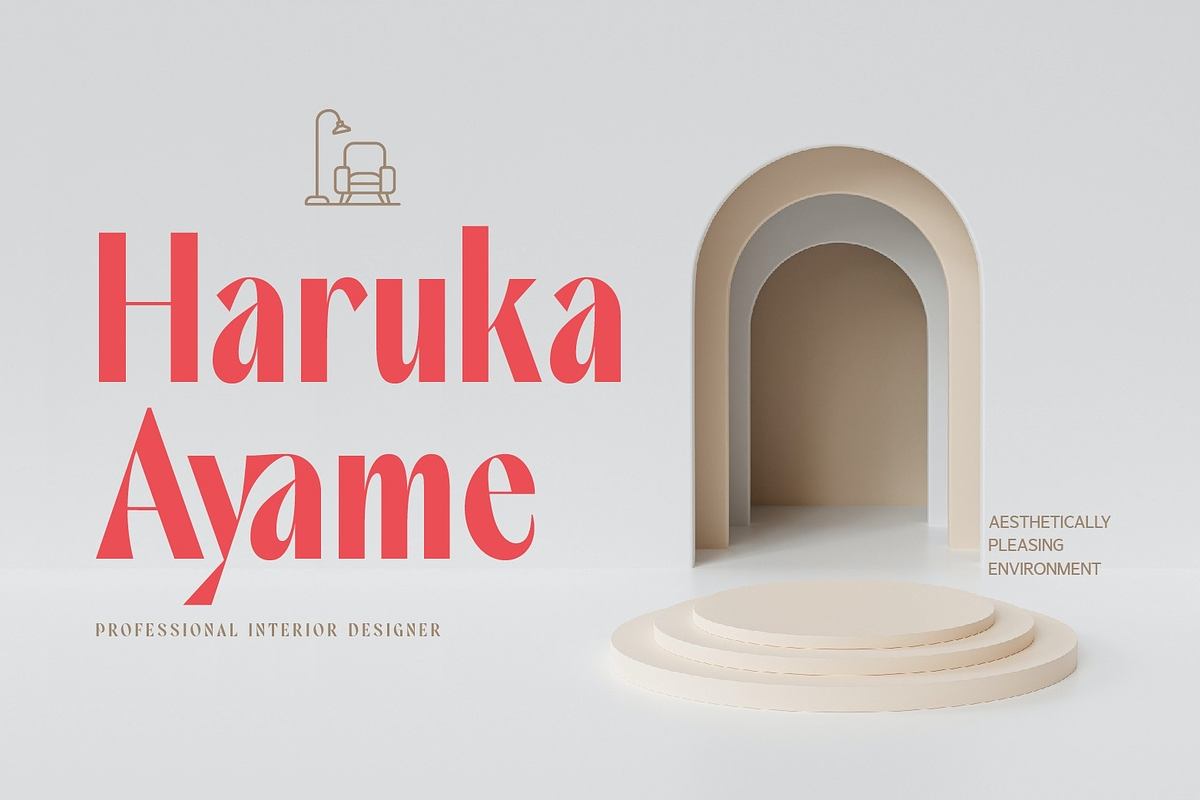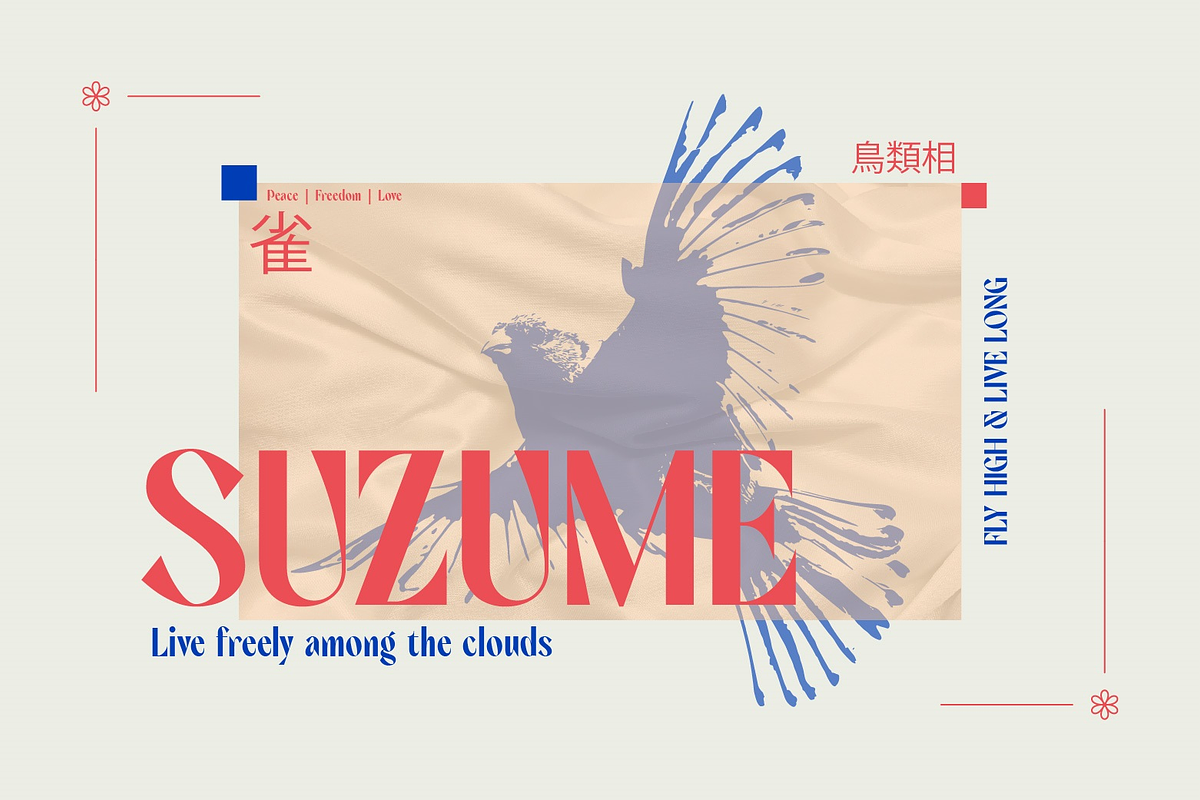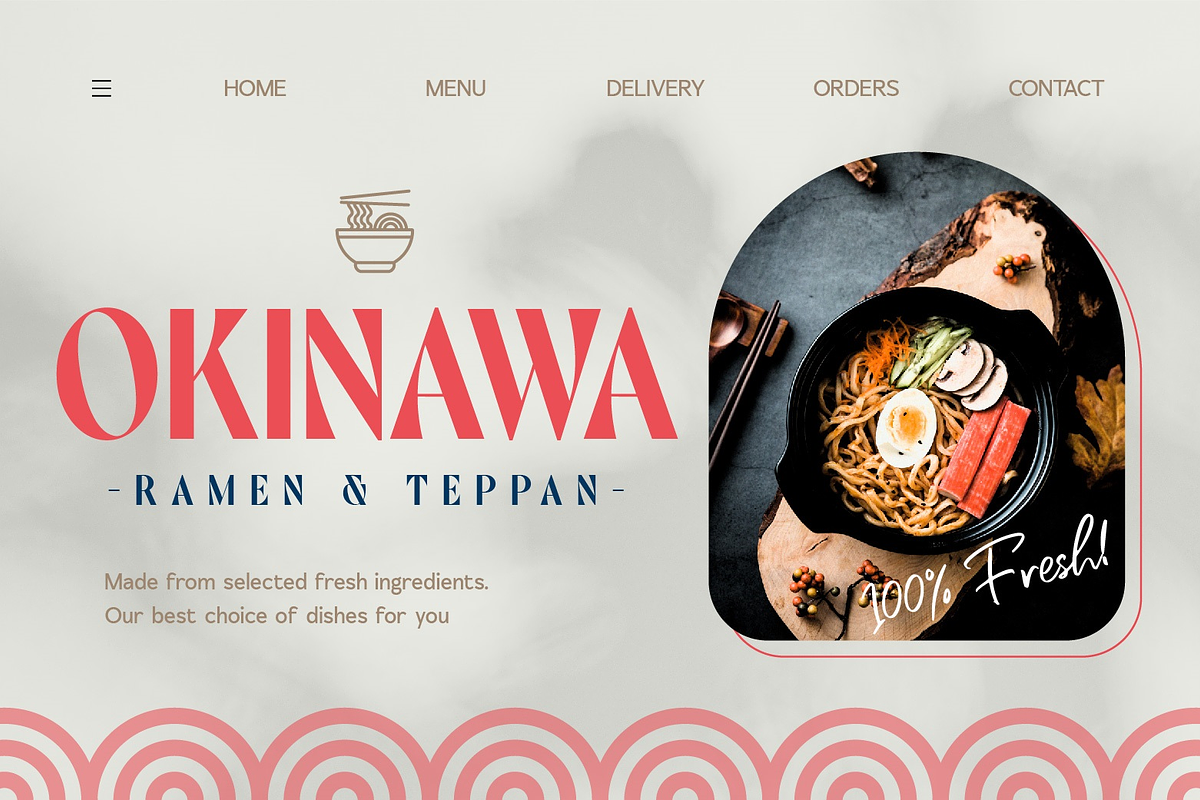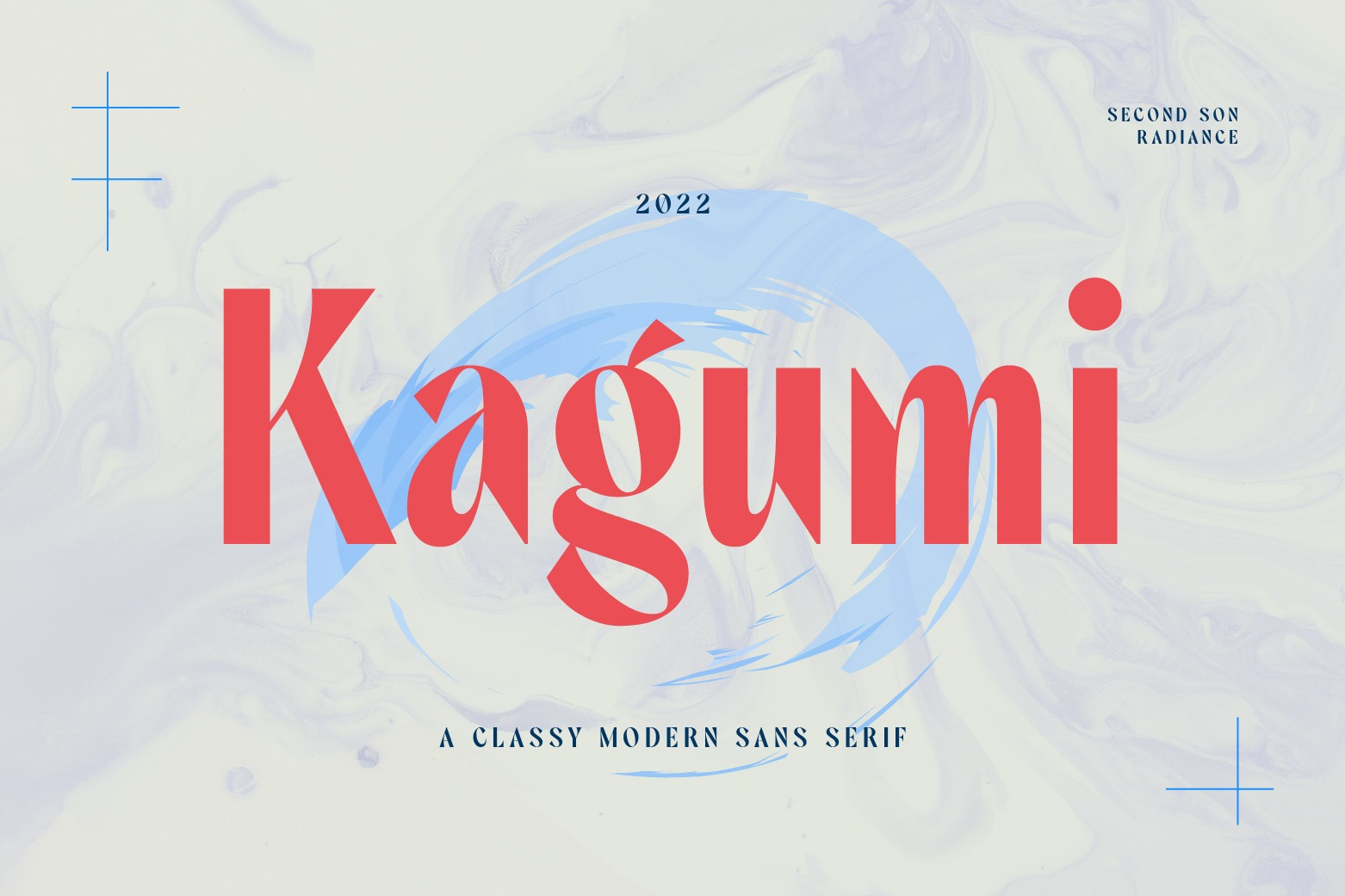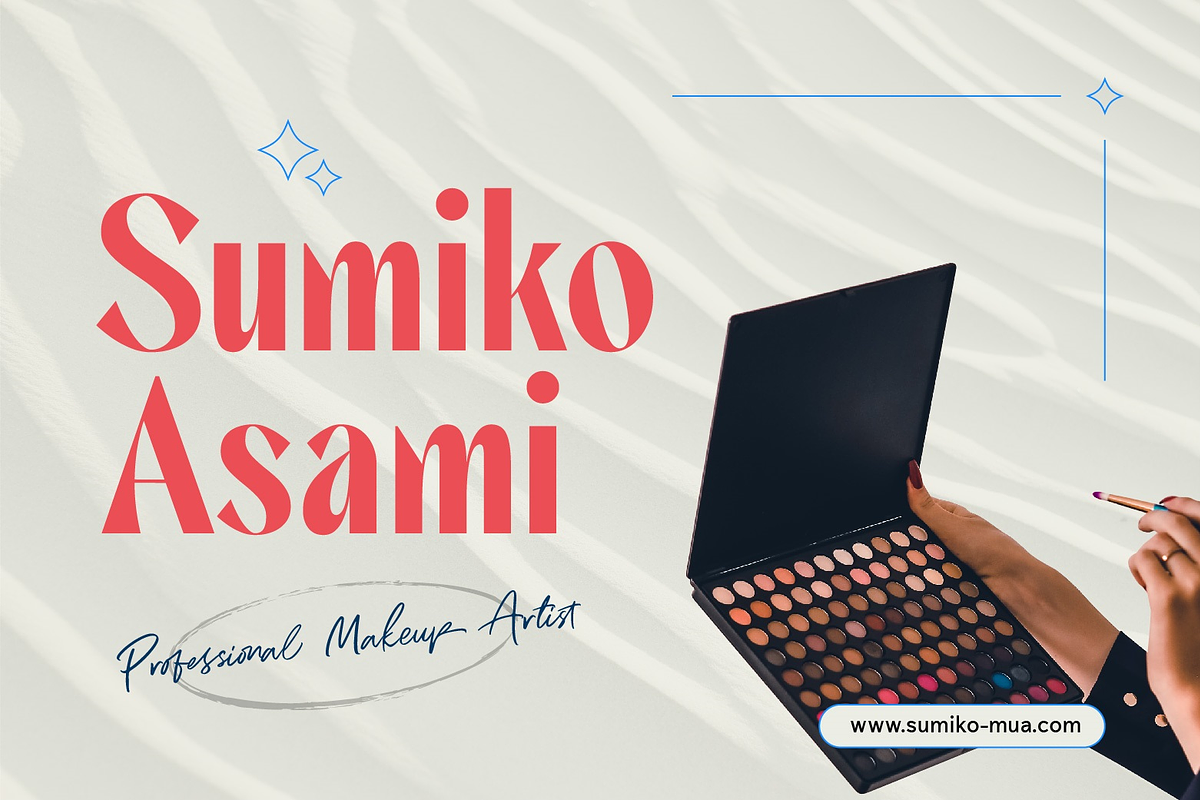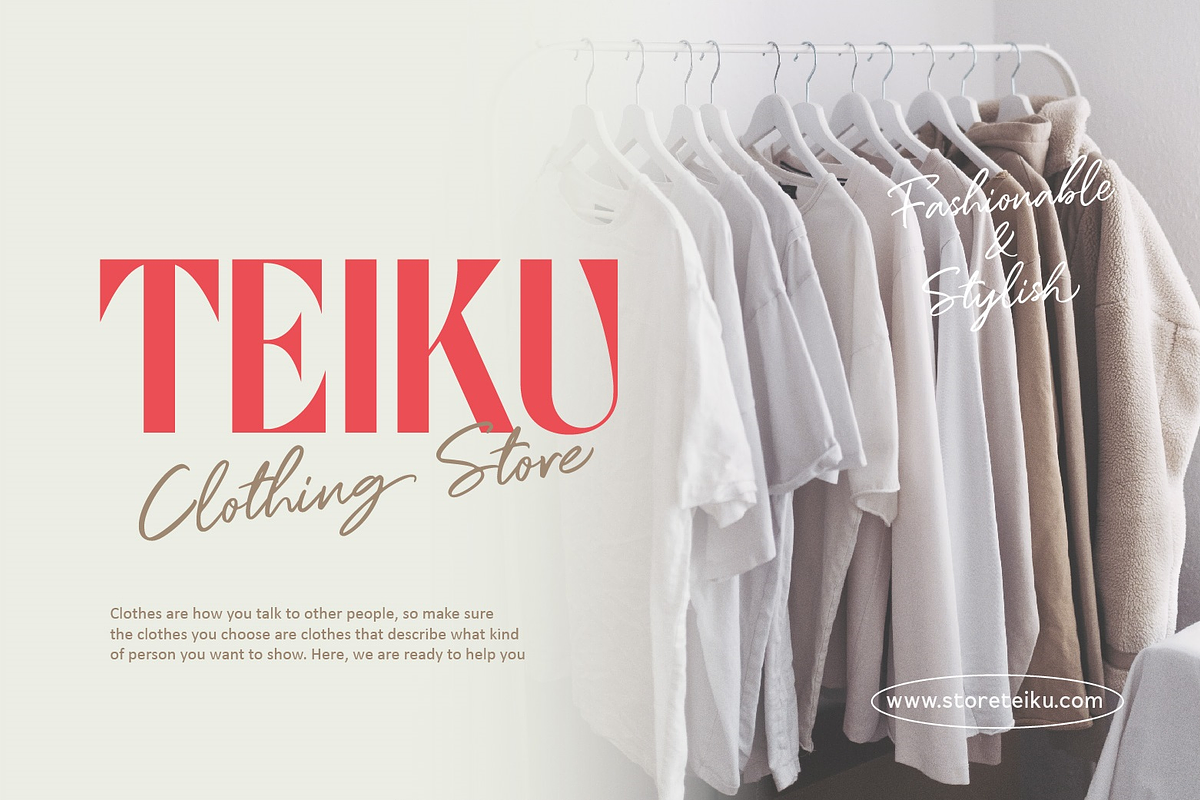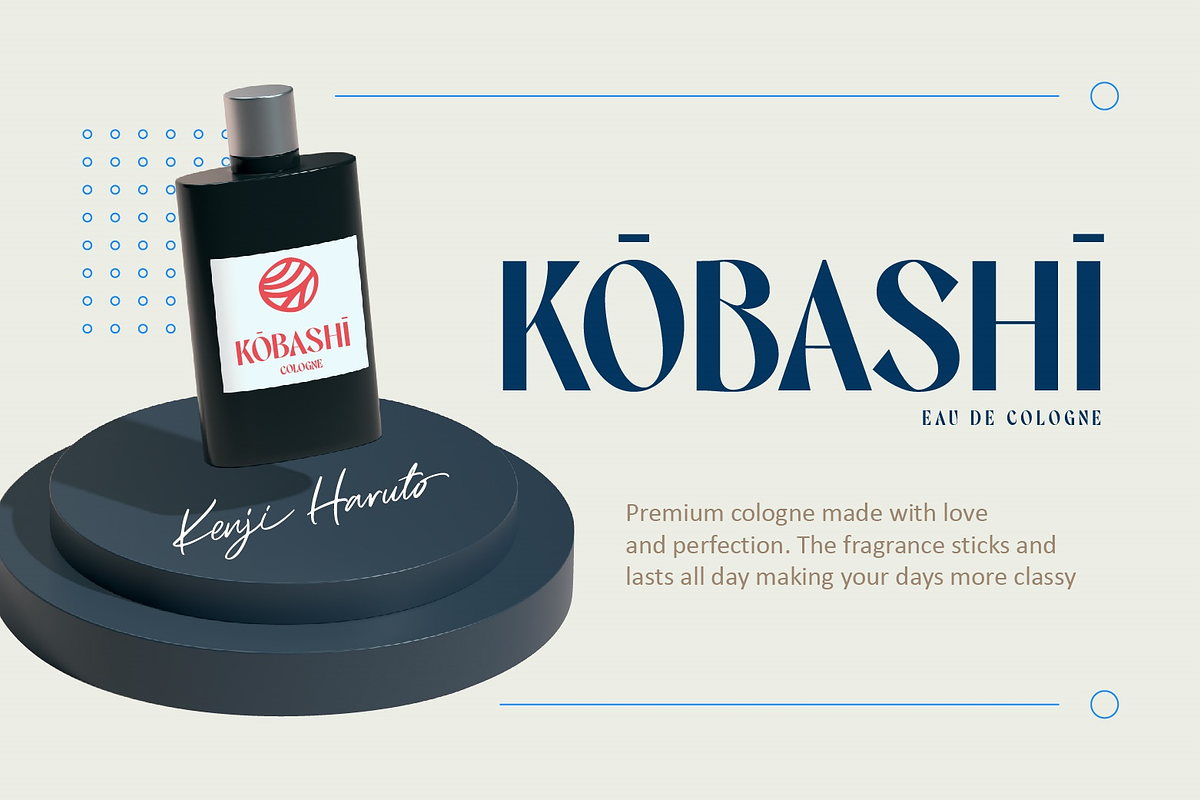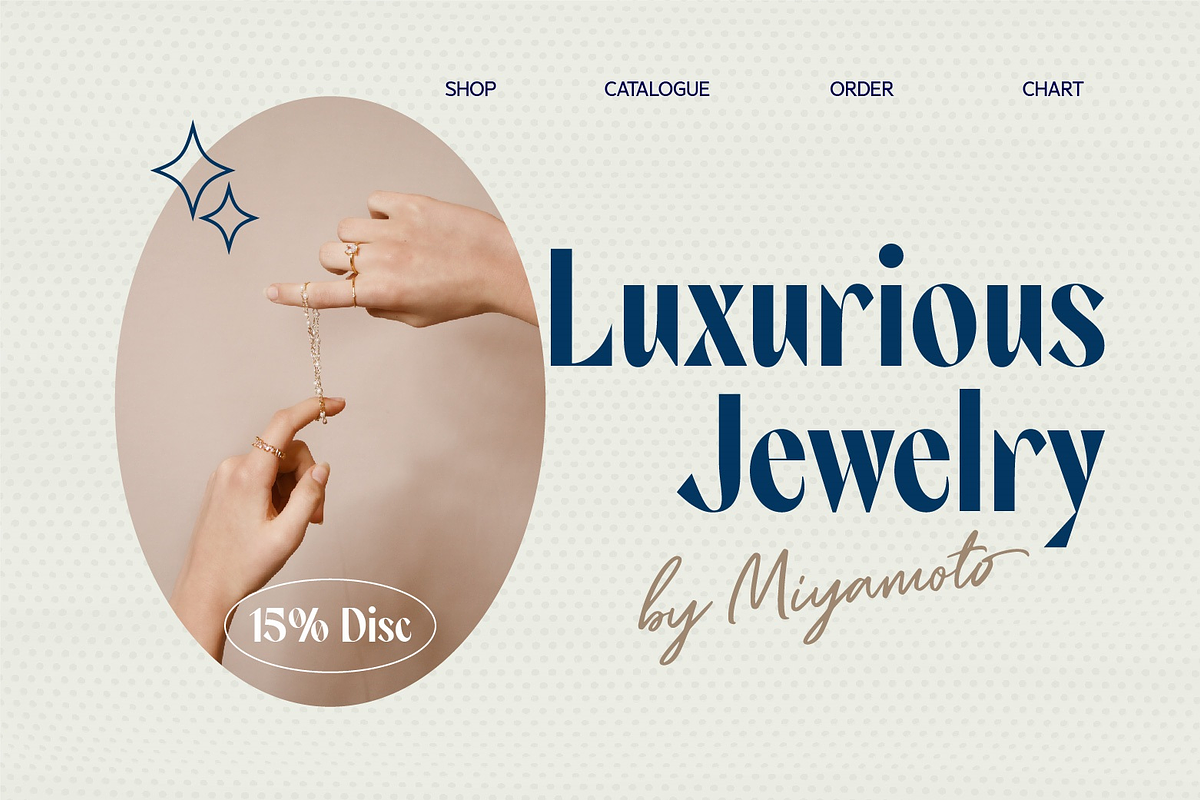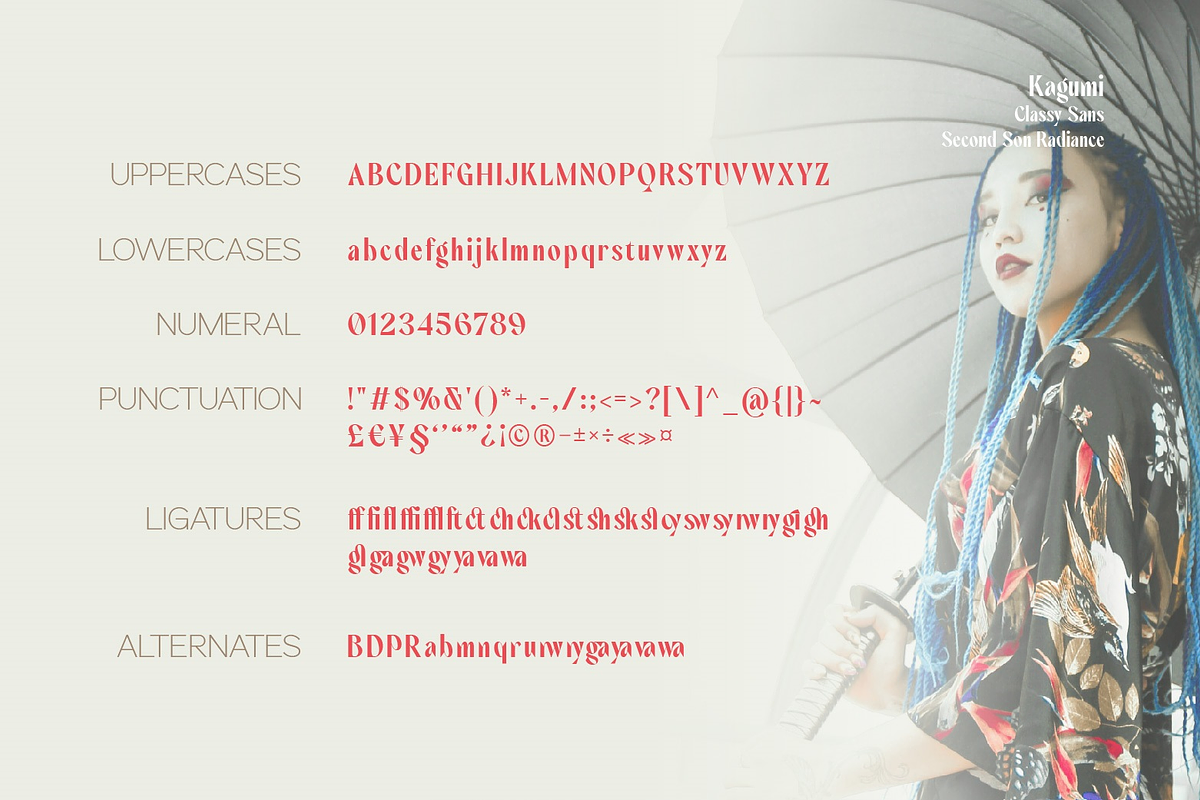
SS Kagumi - Japanese Sans Font
Kagumi - Japanese Vibes Sans -Classy and Elegant font
Kagumi is a sophisticated, charming sans serif font with a Japanese vibe. Specially designed for luxury, elegant, feminine projects, this font is perfectly suitable for any design needs : logo, branding, modern advertising design, holiday and traveling design, fashion and music, animation or movie title, poster quote, book / fantasy novel cover title, editorial design, website / blog, card, and more.